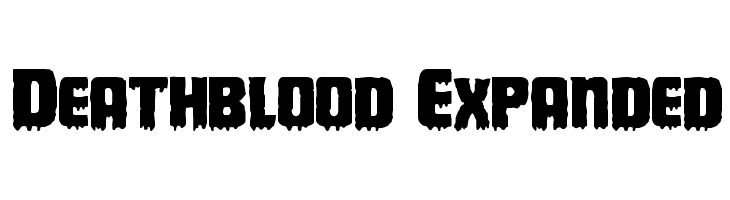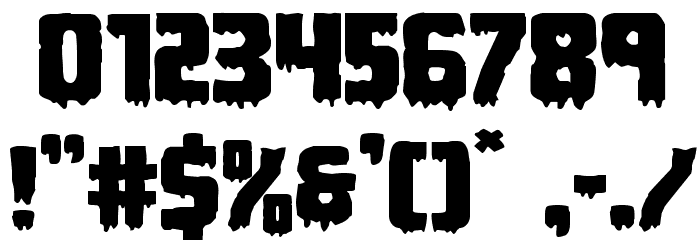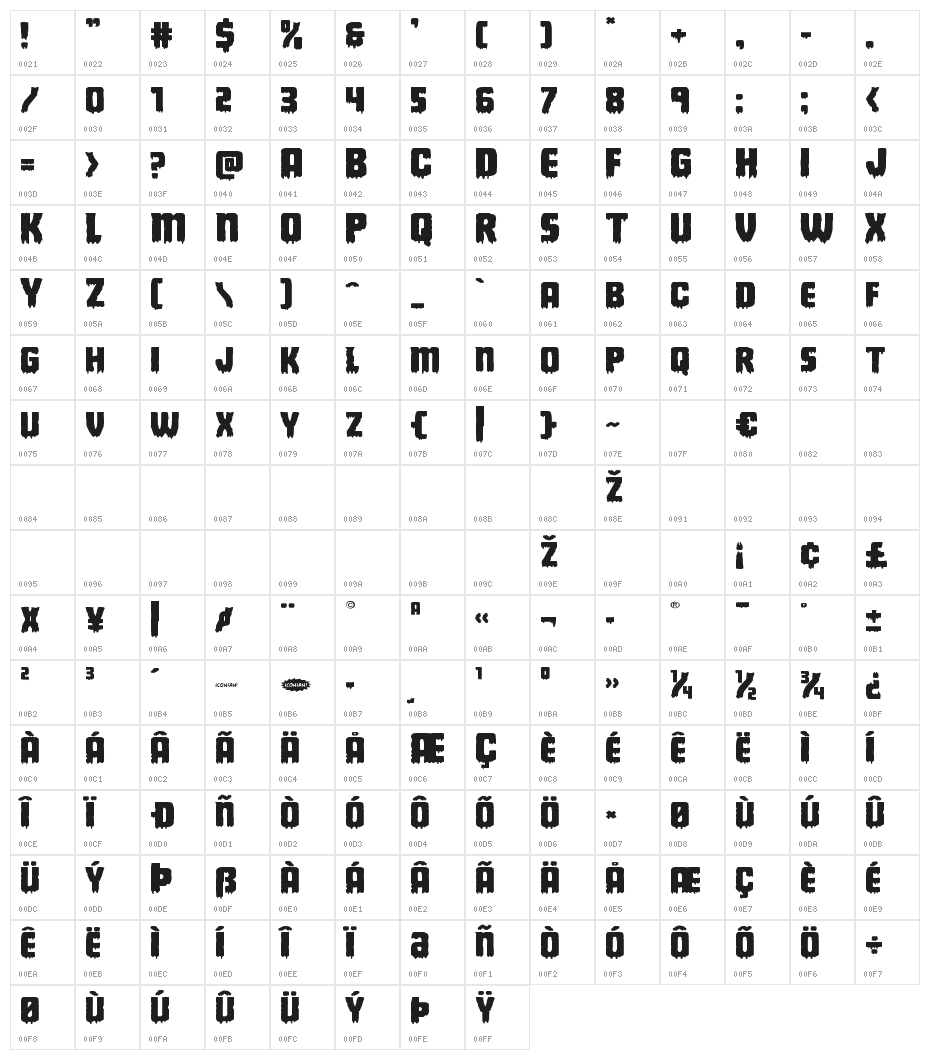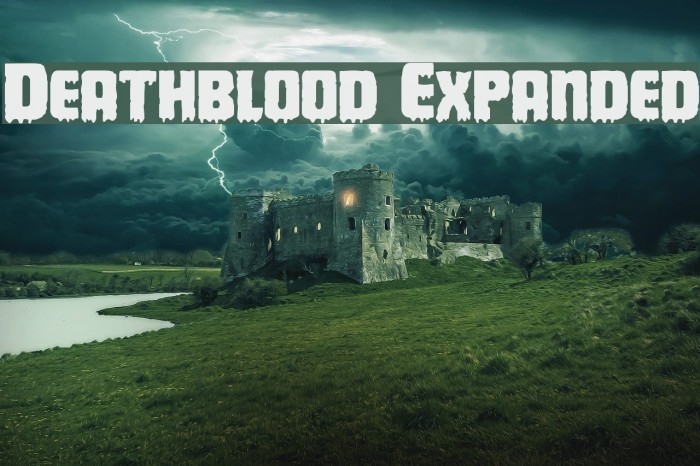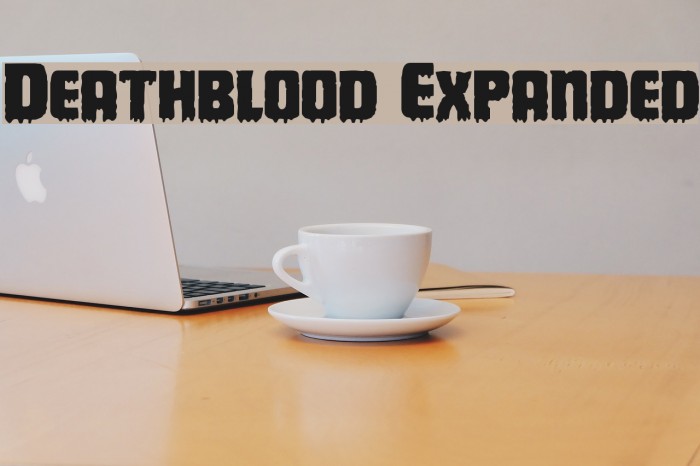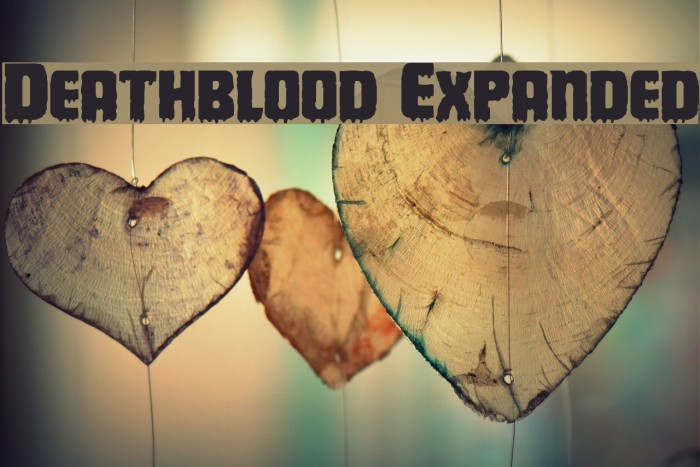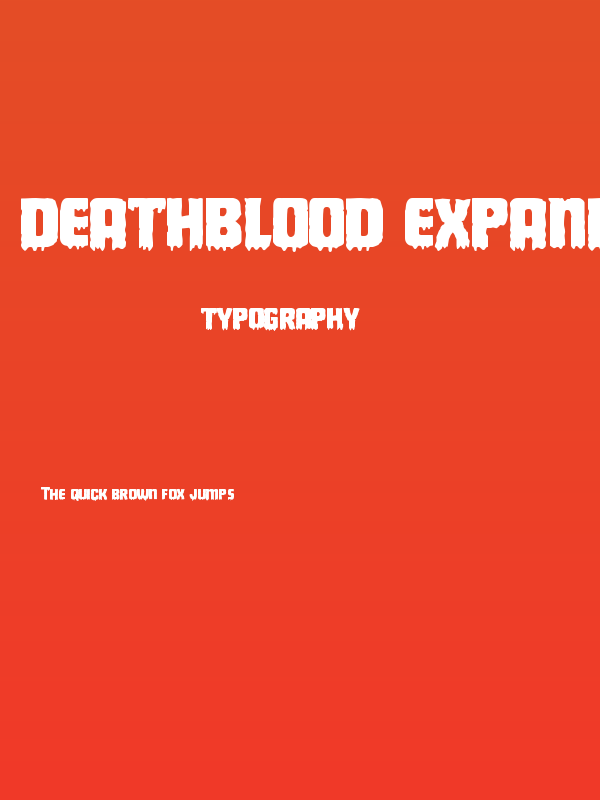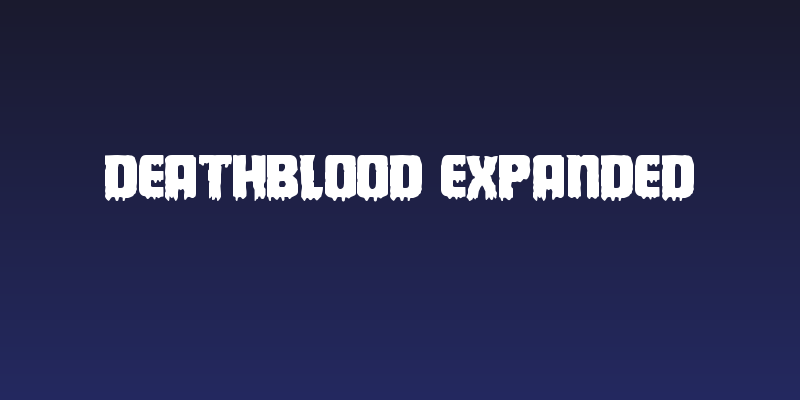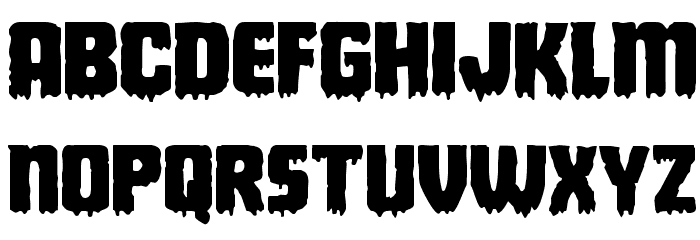
Deathblood Expanded Font
Deathblood Expanded Description
This font features a bold and dramatic style with a distinct horror theme. The characters are designed with a dripping effect, reminiscent of blood or slime, which gives it a unique and eerie appearance. The uppercase and lowercase letters maintain a consistent thickness, contributing to its bold presence. The numerals and special characters follow the same design aesthetic, ensuring uniformity across all glyphs. This font is particularly suited for creating a spooky or Halloween-themed atmosphere, making it ideal for posters, event invitations, or any project requiring a touch of the macabre.
| Proposed Projects | Ideal for Halloween posters, horror movie titles, themed event invitations, and graphic novel covers. |